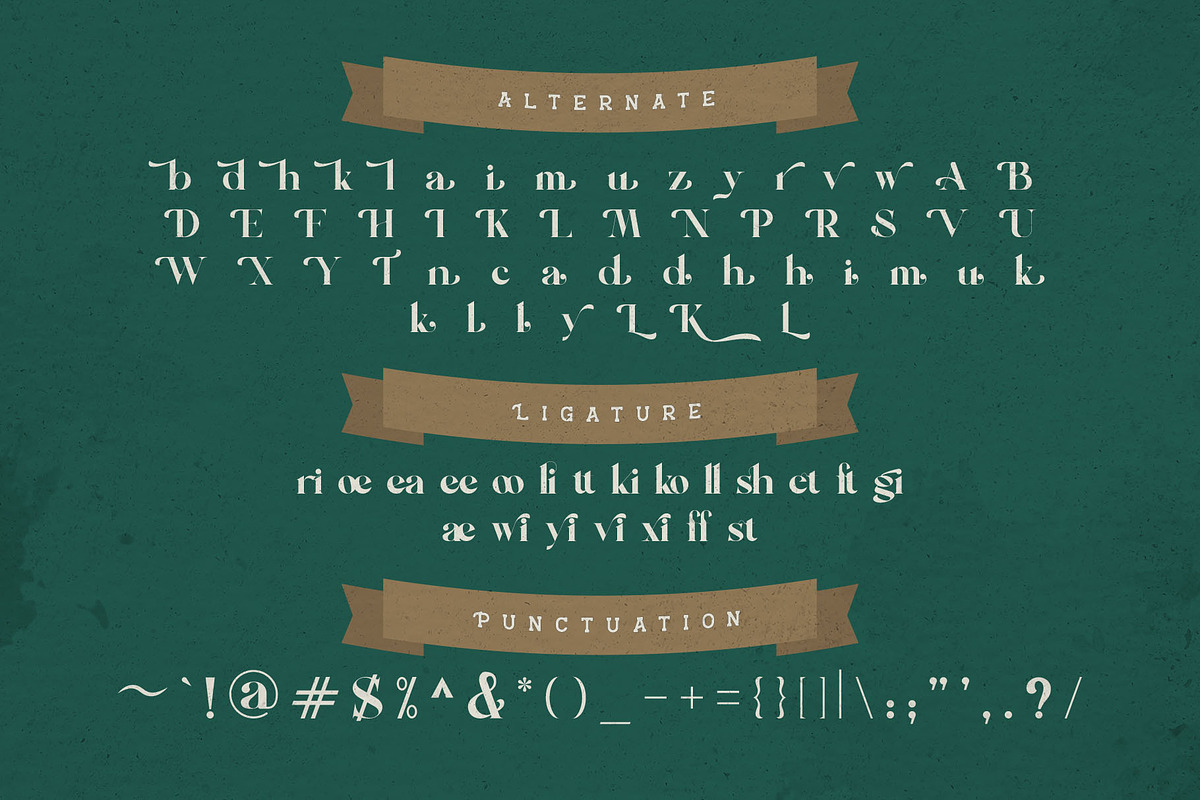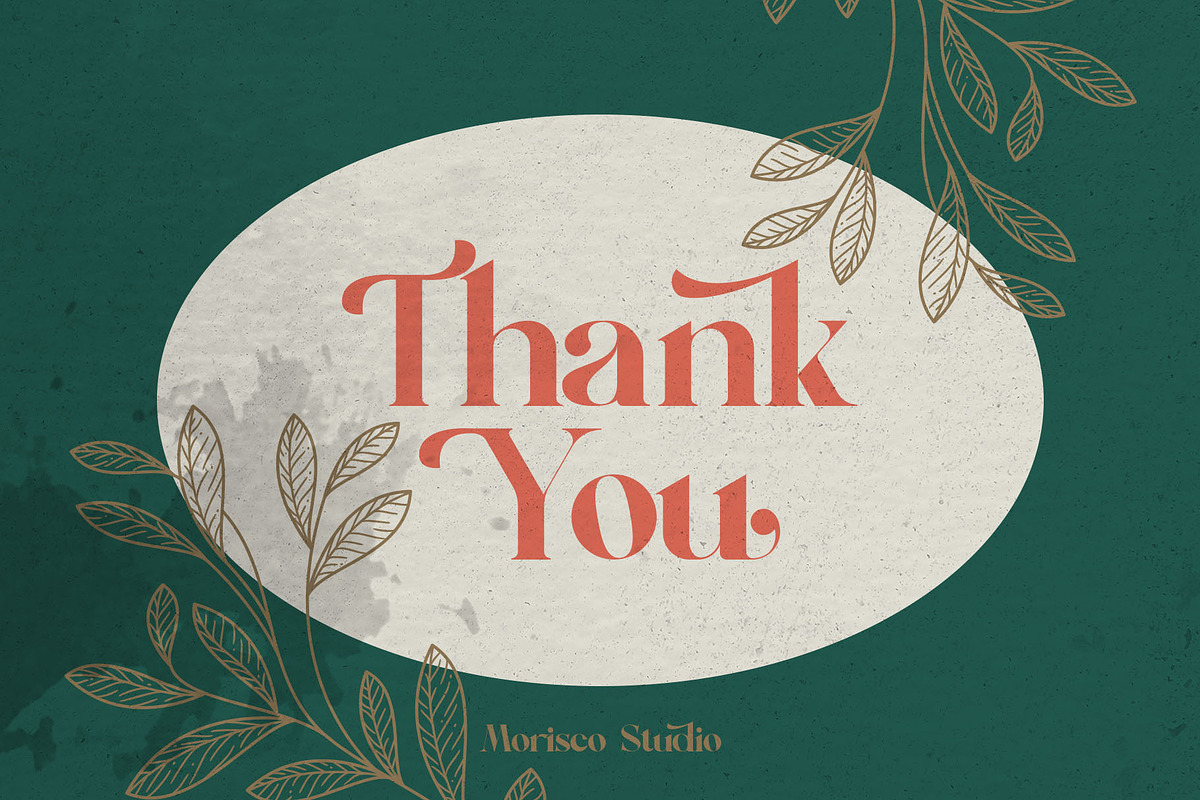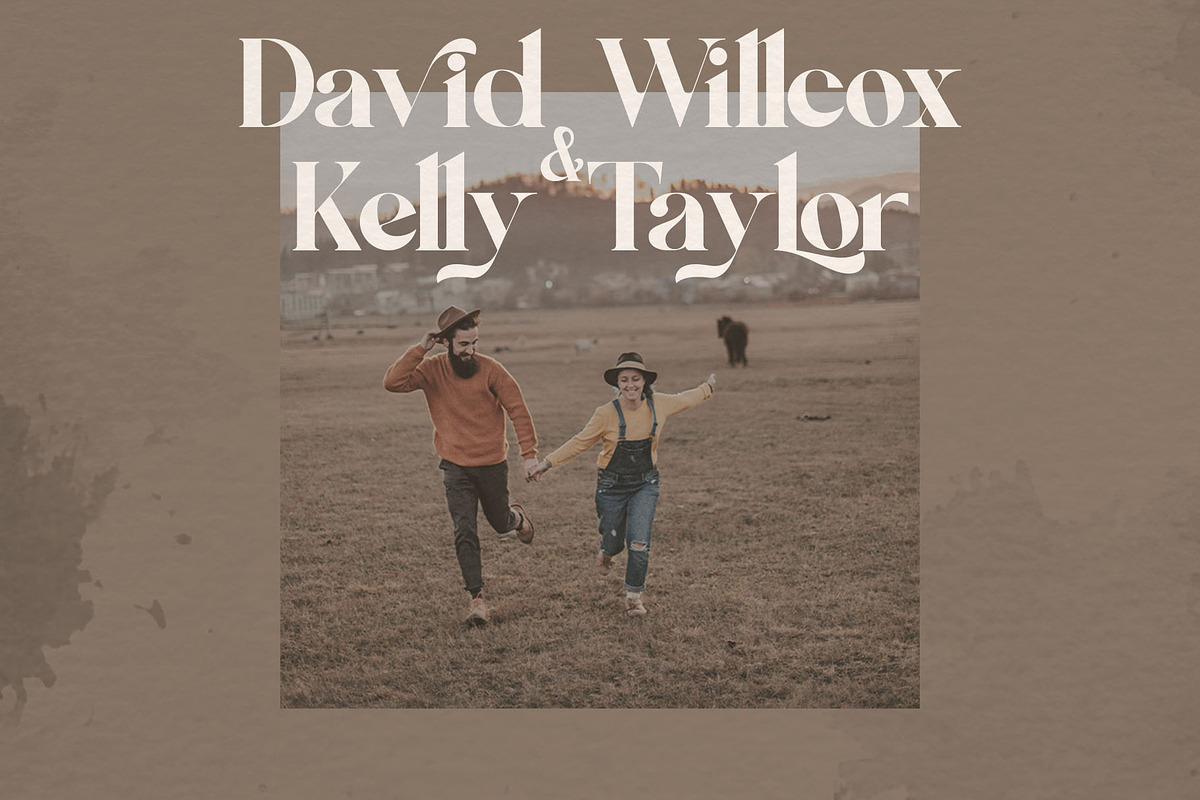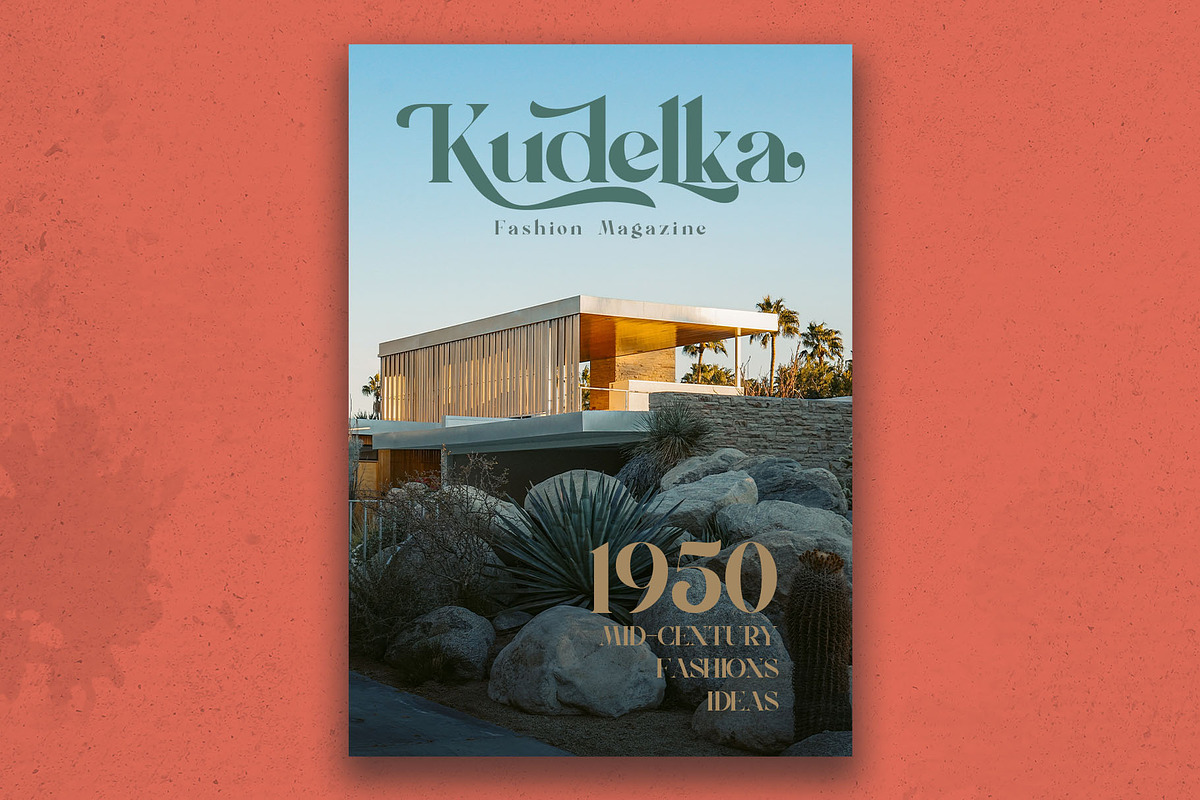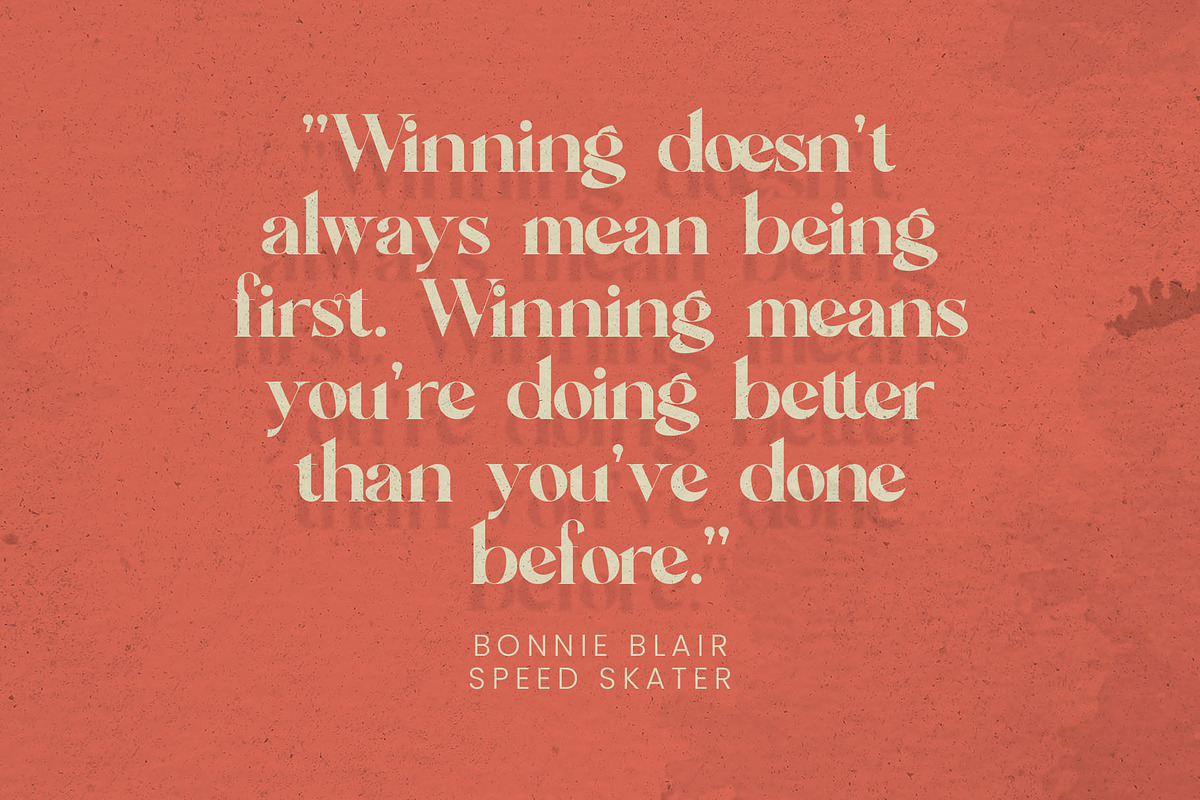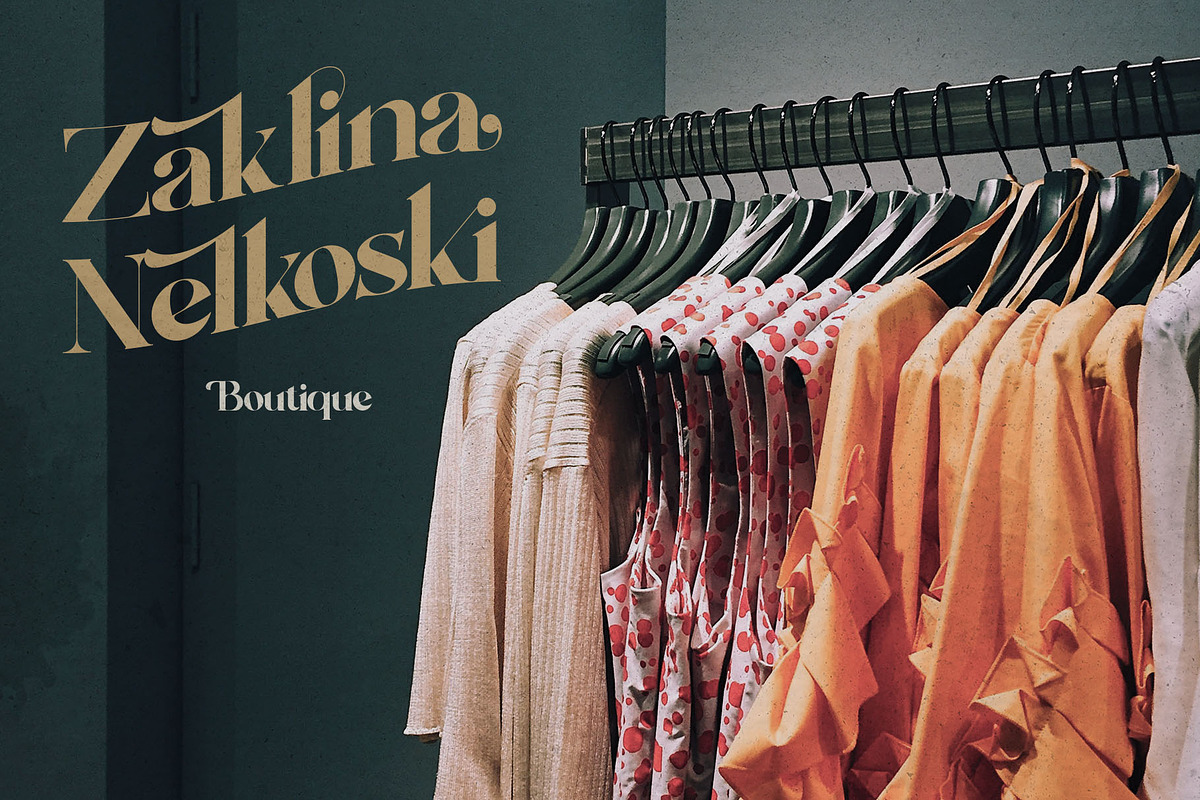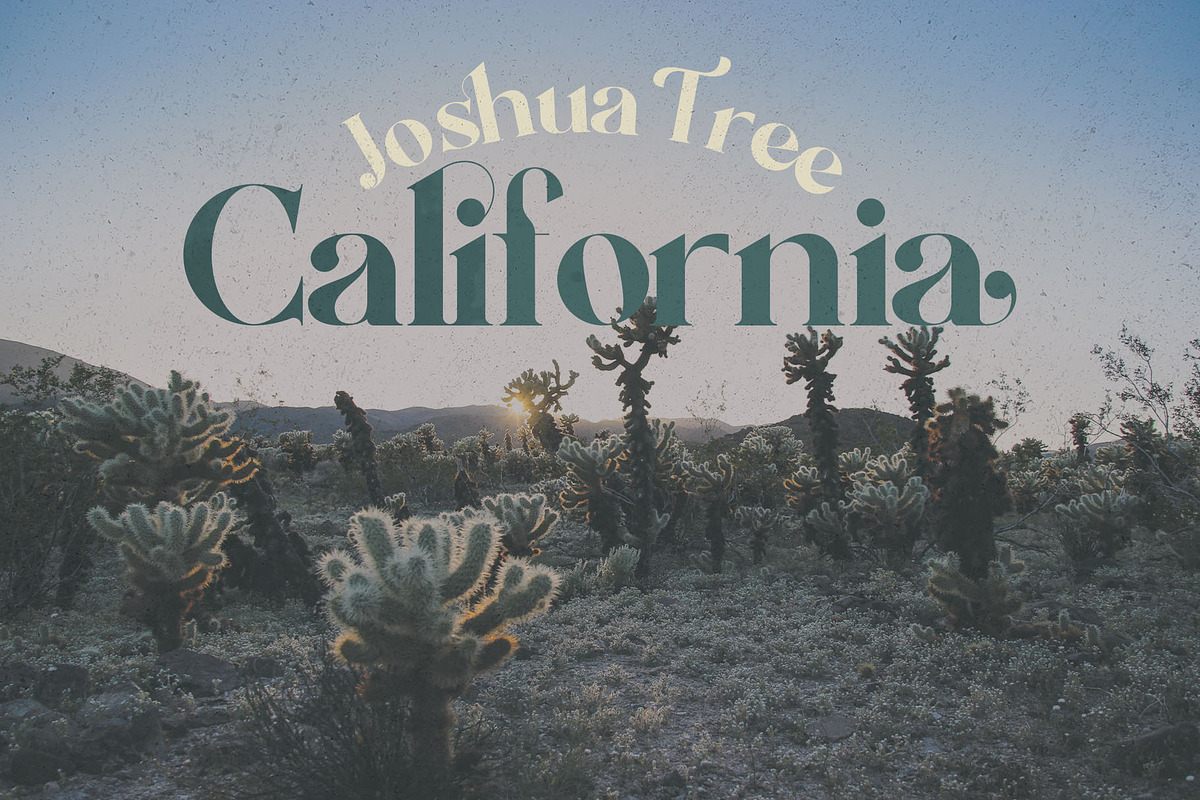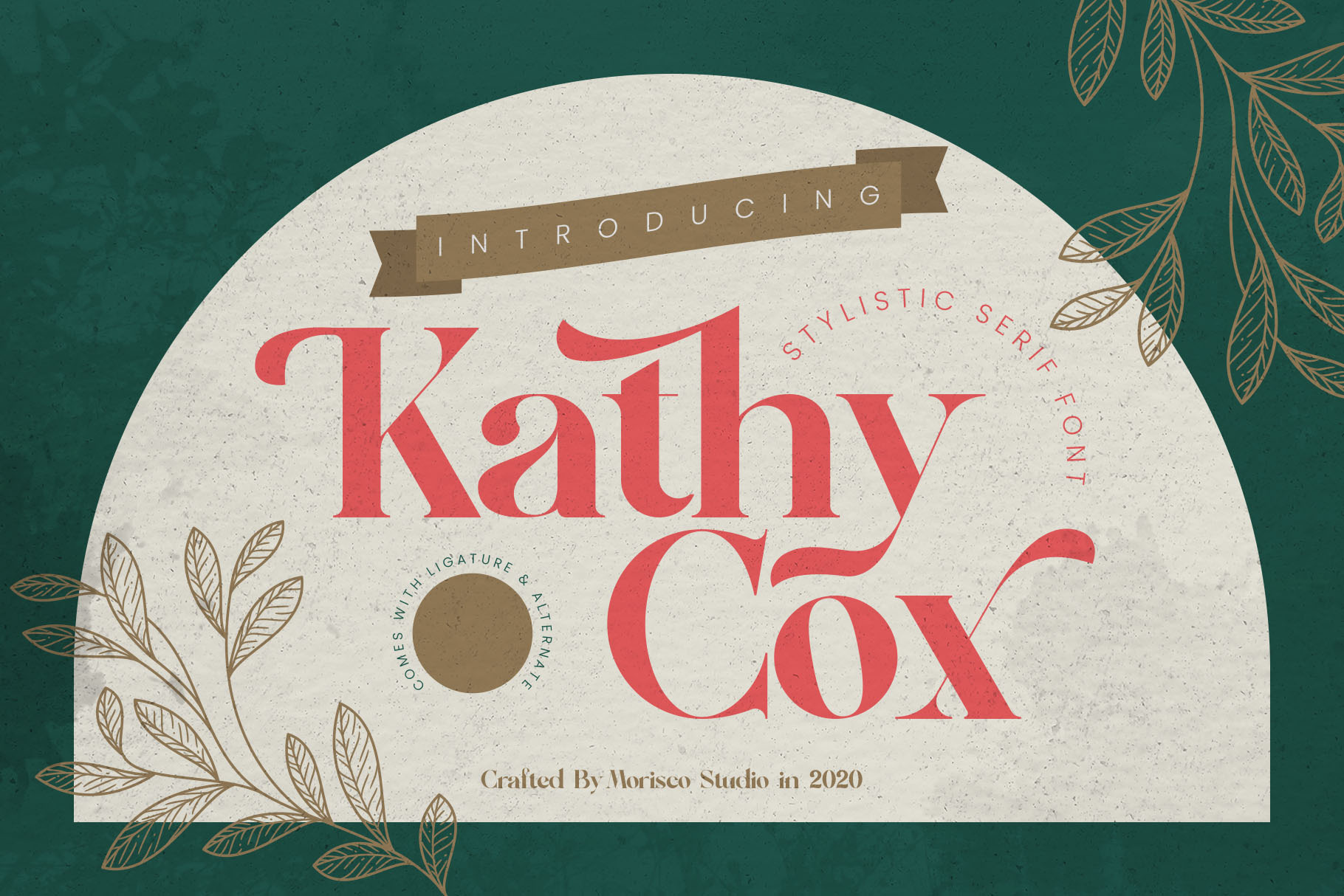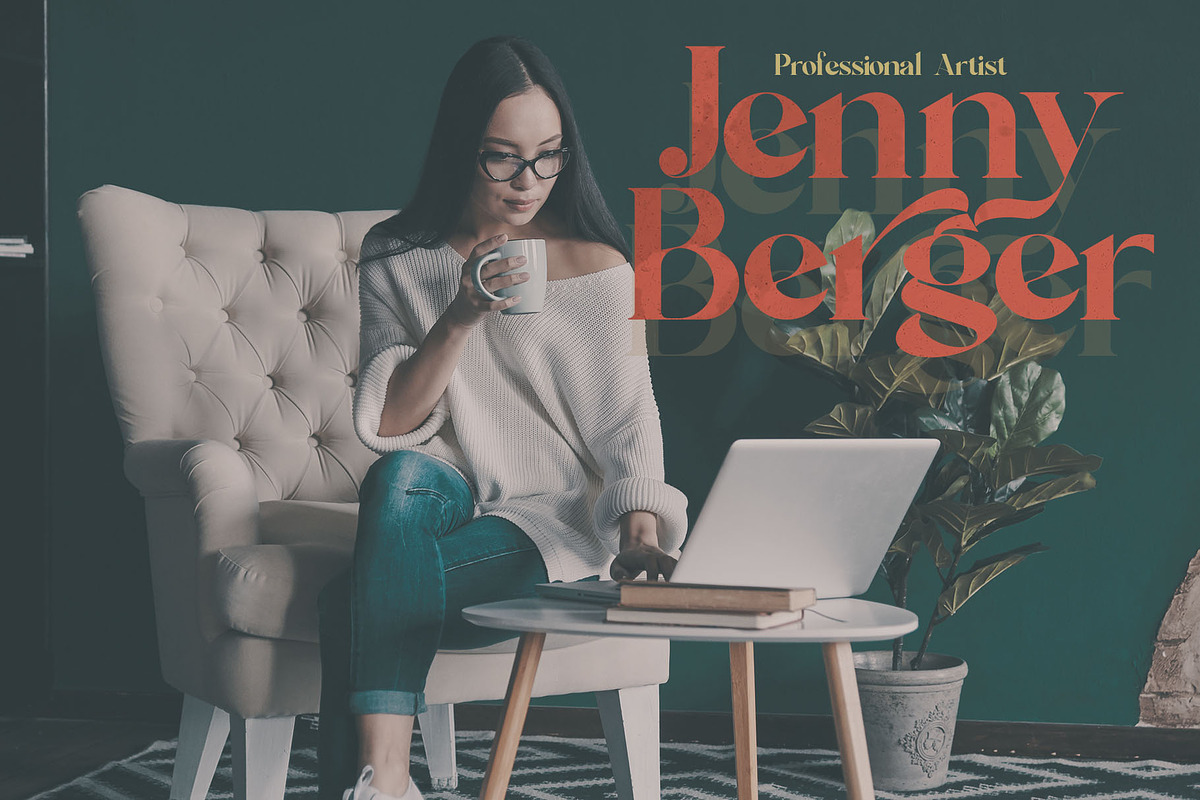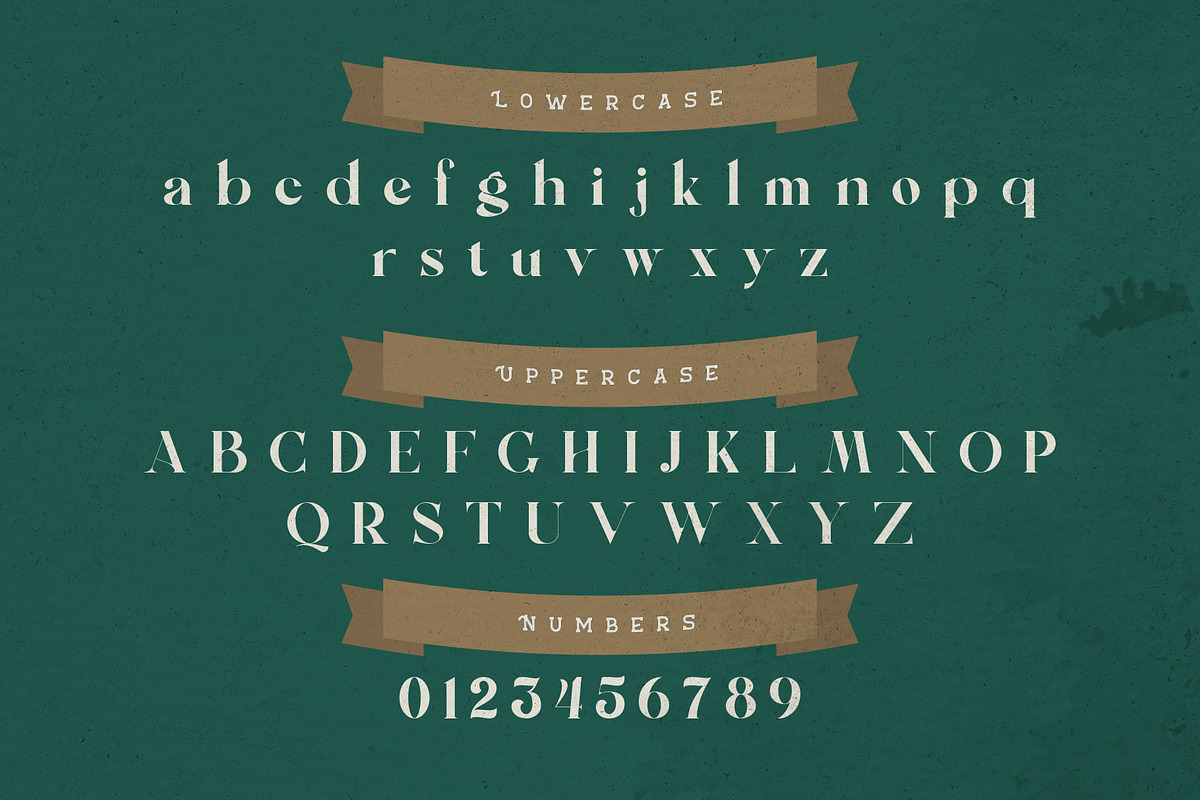
Kathy Cox - Stylish Serif Font
Kathy Cox is a stalistic classic font with a unique character designed by morisco studio. This font, well-suited for headline and any project, like branding, print template, logo and more.